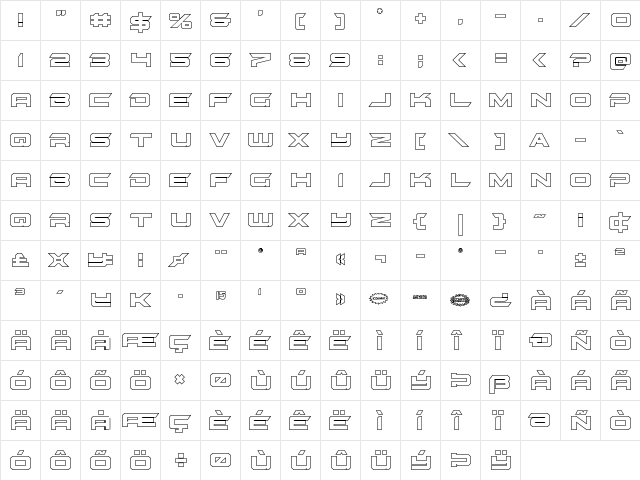
Gypsy Killer Outline Regular
Design Context for Gypsy Killer Outline Typeface
Gypsy Killer Outline is built around its visual character rather than neutral utility — its distinctive forms are designed to make an impression at display sizes.
Font Pairing: Pair with a clean neutral sans-serif for body copy to let Gypsy Killer Outline's character lead without overwhelming the composition.
Pro Tip: Treat Gypsy Killer Outline as the centrepiece of your typographic hierarchy. One strong heading set in a decorative face can carry an entire layout.